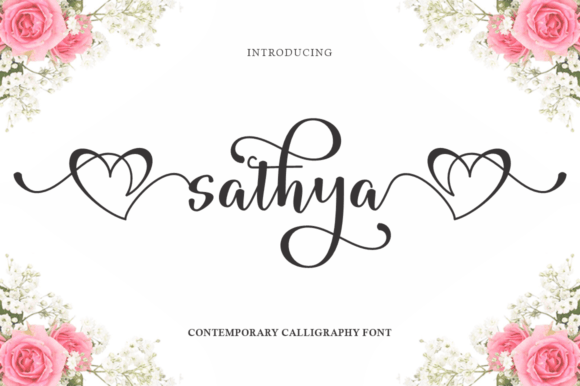
Embark on a Typographic Voyage with Sathya Font: The Epitome of Elegance and Charm
Step into the world of Sathya Font, a masterpiece of digital calligraphy that exudes charm, elegance, and sophistication. This handwritten font, meticulously crafted by the talented gianstudio12, is an ode to the art of penmanship, capturing the allure of flowing lines and graceful curves. Sathya Font is the ultimate choice for design enthusiasts seeking to create captivating designs that leave a lasting impression.
Whether you're a seasoned graphic designer or a creative hobbyist, Sathya Font will elevate your projects to new heights. Its versatility knows no bounds, making it an ideal companion for branding endeavors, home appliance designs, product packaging, and business cards. Let Sathya Font add a touch of refinement to your invitation cards, transforming them into cherished keepsakes. Its seamless integration with background images allows you to create stunning visual compositions that captivate and inspire.
Unleash the Power of Sathya Font: A Font for All Occasions
Sathya Font is not just a font; it's an artistic expression that breathes life into your creative visions. Its meticulously crafted characters, each a testament to the artistry of gianstudio12, evoke a sense of nostalgia and romance. Whether you're designing a logo that exudes timeless elegance or creating social media graphics that demand attention, Sathya Font is your trusted ally.
With Sathya Font at your disposal, you'll discover a world of endless possibilities. Its effortless flow and delicate flourishes add a touch of enchantment to your designs. Imagine crafting wedding invitations that resemble cherished heirlooms, or designing posters that transport viewers to a bygone era of beauty and grace. Sathya Font is the key to unlocking design magic.
Embrace the Beauty of Sathya Font: A Font for Every Design Visionary
As a font crafted with love and attention to detail, Sathya Font possesses a captivating aura that sets it apart from the ordinary. Its timeless appeal transcends trends and seasons, making it a font that will continue to inspire and delight for years to come. If you seek a font that ignites your creativity and sets your projects apart, Sathya Font is the perfect choice.
Join the growing community of designers and creatives who have embraced the transformative power of Sathya Font. Experience the joy of creating designs that resonate with your audience, leaving them captivated and inspired. Let Sathya Font be your guide as you embark on a creative journey like no other. Welcome to the world of Sathya Font, where elegance and charm intertwine to create typographic masterpieces.